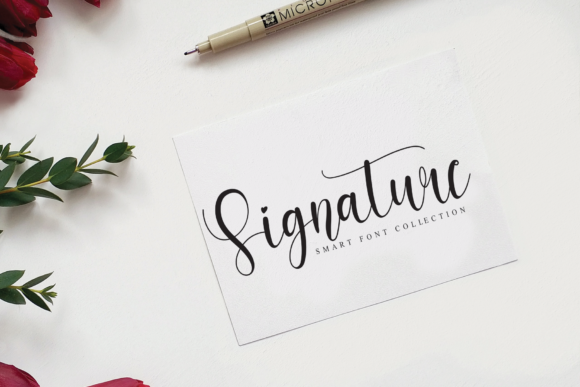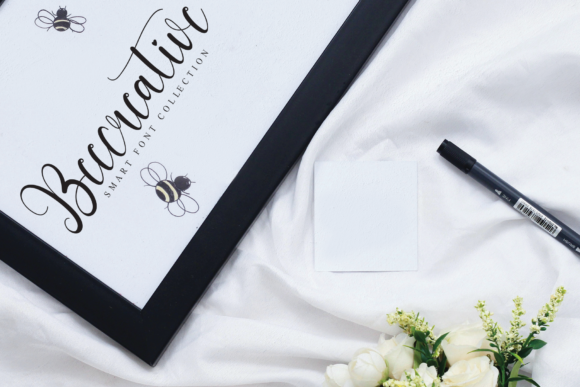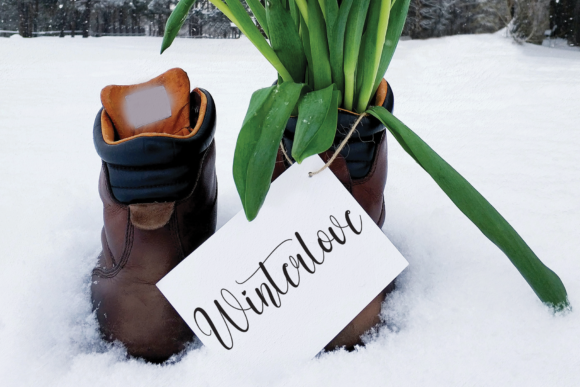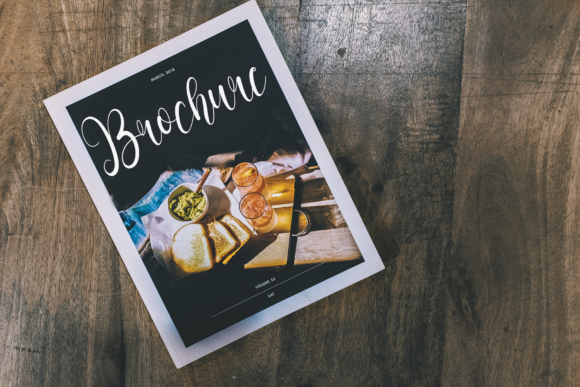
Introducing Amstermilk Font: The Perfect Addition to Your Design Arsenal
Are you tired of using the same old fonts in your designs? Look no further! Amstermilk Font is a fun and quirky handwritten font that’s sure to add a touch of personality to any project. In this article, we’ll dive into the world of Amstermilk Font and explore its features, benefits, and uses.
What is Amstermilk Font?
Amstermilk Font is a carefully crafted handwritten font that’s designed to add a stylish and authentic touch to your designs. With its unique and quirky personality, this font is perfect for designers and crafters looking to add some flair to their projects. Whether you’re working on a logo, branding materials, or crafty DIY project, Amstermilk Font is the perfect choice.
Features of Amstermilk Font
So, what makes Amstermilk Font so special? Here are just a few of its standout features:
- Handwritten with love: Amstermilk Font is a genuine handwritten font, crafted with care and attention to detail.
- Fun and quirky personality: This font has a unique and playful personality that’s sure to add a touch of whimsy to your designs.
- High-quality design: Amstermilk Font is designed to perfection, with clean lines and precise curves.
- Versatile: This font can be used on a wide range of projects, from logos and branding materials to crafty DIY projects and more.
Benefits of Using Amstermilk Font
So, why should you choose Amstermilk Font for your next project? Here are just a few benefits of using this amazing font:
- Adds authenticity: Amstermilk Font has a genuine, handmade feel that adds authenticity to any design.
- Boosts creativity: With its unique and quirky personality, Amstermilk Font is sure to inspire your creativity and help you think outside the box.
- Easy to read: Despite its playful personality, Amstermilk Font is easy to read and understand, making it perfect for use on a wide range of projects.
- Versatile: This font can be used on a wide range of projects, from digital designs to print materials and more.
Uses for Amstermilk Font
So, what can you use Amstermilk Font for? The possibilities are endless! Here are just a few ideas to get you started:
- Logos and branding materials: Amstermilk Font is perfect for creating unique and memorable logos and branding materials.
- Crafty DIY projects: Add a touch of personality to your crafty DIY projects, such as handmade cards, gift tags, and more.
- Digital designs: Use Amstermilk Font in your digital designs, such as social media graphics, blog posts, and more.
- Print materials: This font is perfect for use on print materials, such as brochures, flyers, and more.